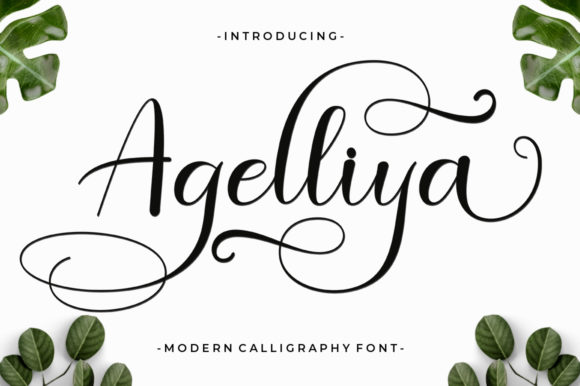
About Agelliya Font
Agelliya is playful and dynamic, but also elegant. This versatile script font has a wide range of applications ranging from calligraphy art to headlines and quotes, and is guaranteed to add a magical touch to your next design.
This font is PUA encoded which means you can access all of the beautiful glyphs and swashes with ease! It also features a wealth of special features including alternate glyphs and ligatures.